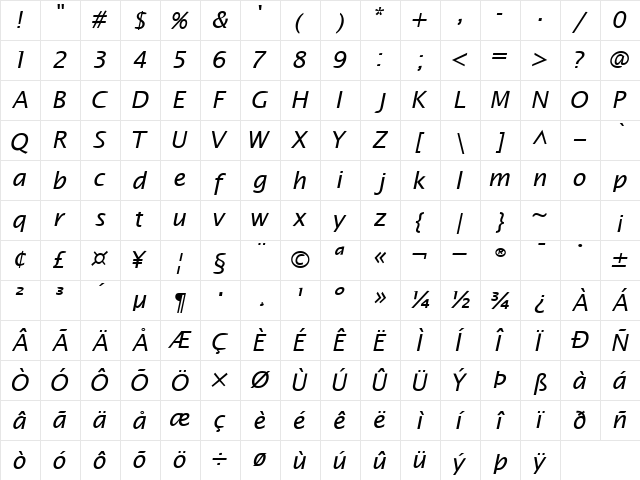
Complete MachadoSansSSK Italic glyph index. Displaying only characters natively supported by MachadoSansSSK Italic font.
MachadoSansSSK is a composed and adaptable typeface that performs quietly and consistently across a wide range of design contexts. The slanted form adds forward momentum and visual energy.